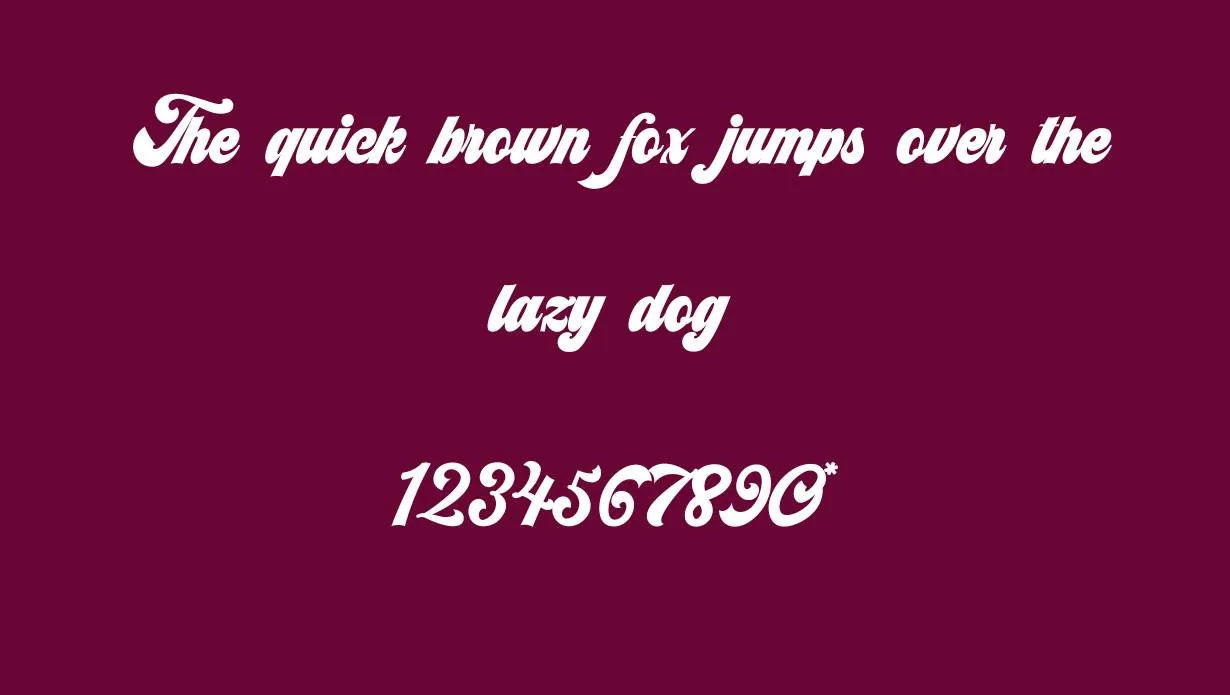
The Syncro Script font is the perfect complement to your words, moving gracefully and elegantly to enhance any project. Whether you’re designing wedding invitations, custom greeting cards, or refining your brand materials, this font adds a sophisticated and stylish touch.
With a standard width and moderate weight, this font strikes a balance between being graceful and easy to read. Picture using the Syncro Script font for a boutique’s logo, infusing your branding with a sense of artistic elegance.